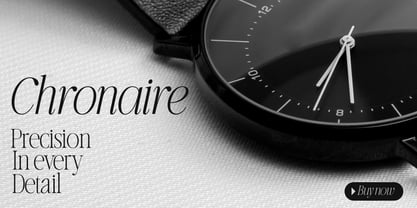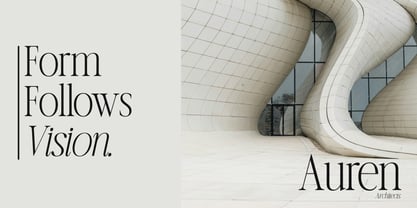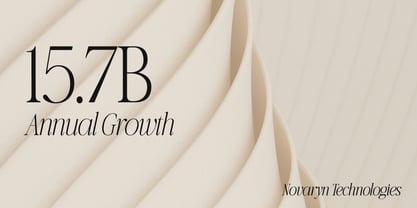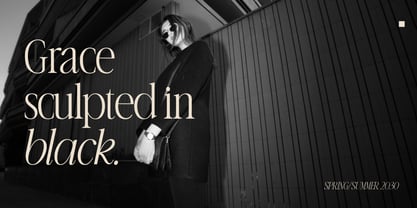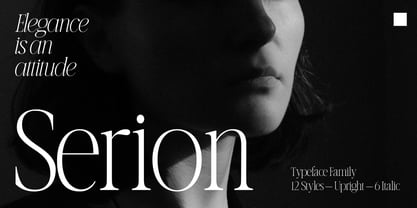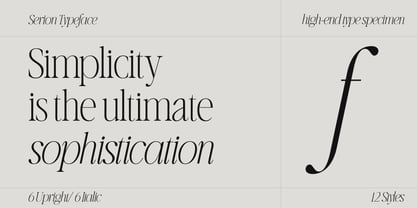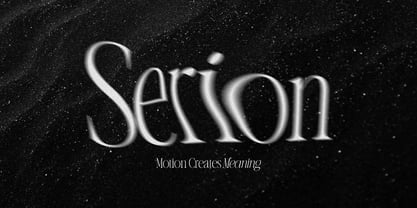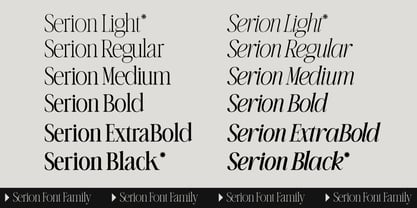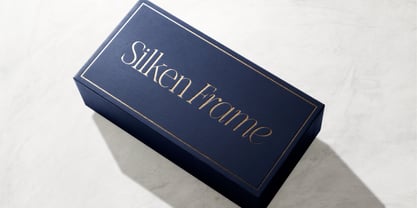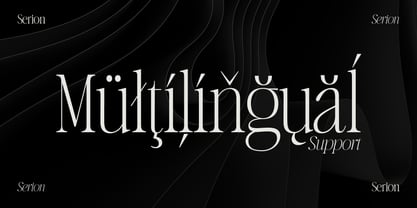
The Serion Font Family was designed by Zak M and published by Prestige Artsy Studio. Serion contains 12 styles and family package options. More about this family
Serion is a contemporary sans-serif typeface meticulously crafted for modern brands, refined interfaces, and elevated visual systems. It seamlessly blends sleek geometry with a subtle humanist touch, creating a typeface that feels both distinctly modern and highly professional. Designed with precision, restraint, and versatility in mind, Serion is a complete 12-style family featuring 6 Upright styles and 6 Italic styles. This versatility allows it to adapt effortlessly across minimalist editorial layouts, luxury branding, corporate identities, UI systems, presentations, packaging, and sophisticated digital experiences, all while maintaining a sharp, refined, and confident visual voice. Its carefully engineered proportions, balanced spacing, and clean rhythmic structure provide exceptional readability without sacrificing personality. The italic styles introduce a dynamic and elegant contrast, ideal for premium branding systems, emphasis, and contemporary art direction. Serion is created for designers, creatives, and forward-thinking companies seeking a typeface that communicates clarity, confidence, innovation, elegance, and professionalism through a timeless yet future-oriented aesthetic that sits perfectly between luxury minimalism and modern corporate sophistication. Equally suited for fashion campaigns, technology brands, architecture studios, creative agencies, premium products, and modern startups, Serion delivers a strong typographic hierarchy, excellent legibility, and seamless versatility across both print and digital environments. It is far more than just a typeface family; it is a complete visual system designed for brands that value precision, modernity, and timeless sophistication.
Designers: Zak M
Foundry: Prestige Artsy Studio
Serion